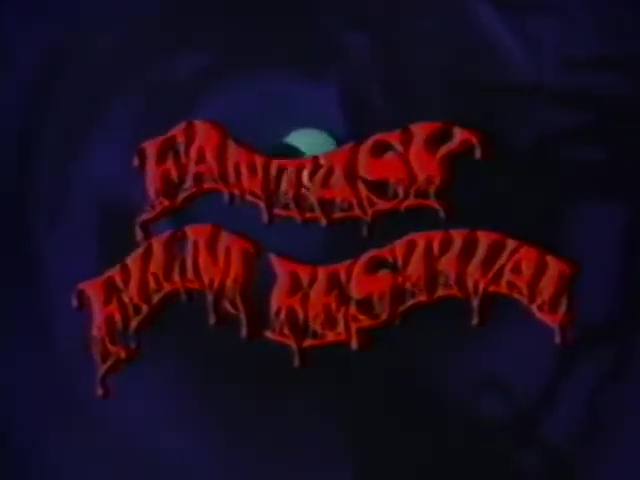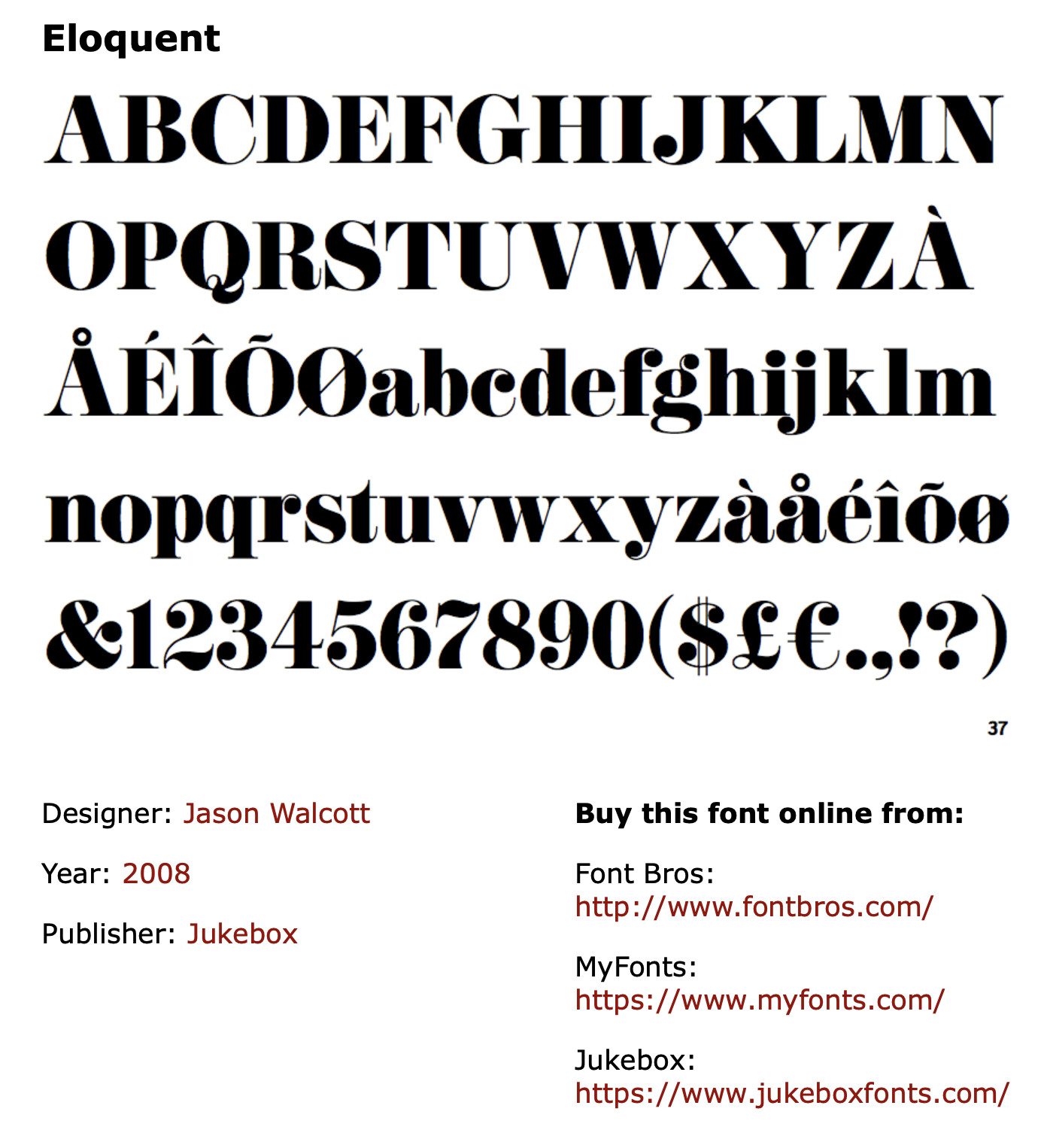
Anyone have any idea what this font is?
It looks like a heavy weight Didone face with lots of manipulation and processing in Photoshop. I searched for fonts that had a cap Y with bracketed serifs, an A with a flat top, and an S with large serifs. Eloquent was the best match I found.